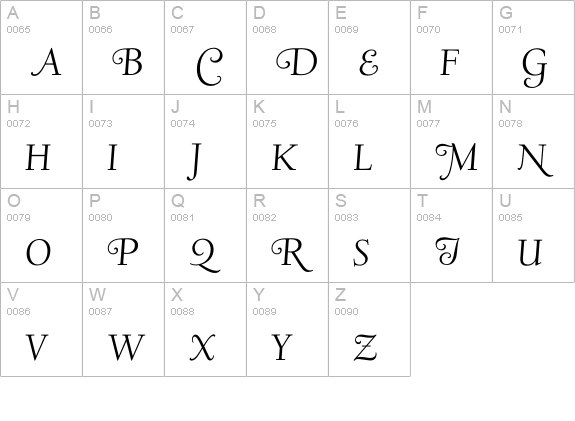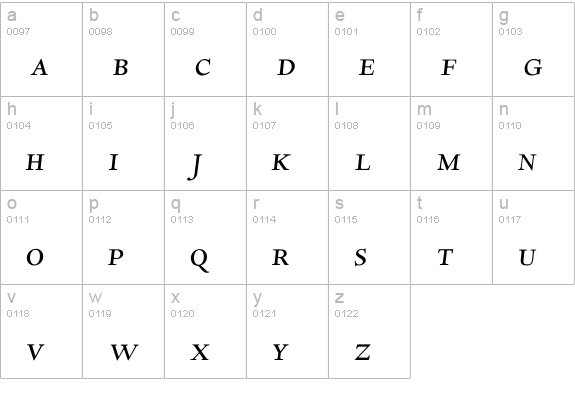
DeepdeneHWAlt-SC-Ita Font Details
DeepdeneHWAlt-SC-Ita is a stunning and elegant display font that exudes sophistication and charm. With its unique design and delicate italicized curves, this font is perfect for adding a touch of class to any project. Whether you're designing a wedding invitation, a logo, or a branding project, DeepdeneHWAlt-SC-Ita will elevate your design to new heights. The best part about DeepdeneHWAlt-SC-Ita is that it is completely free to download at FontsMarket.com. Yes, you read that right - this beautiful font is available for you to use without any cost. So go ahead and enhance your projects with the timeless beauty of DeepdeneHWAlt-SC-Ita today!